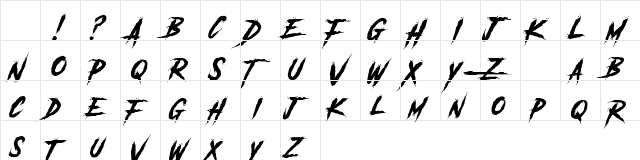
Another Danger Slanted - Demo Regular
Designer: The Branded Quotes
Design Context for Another Danger Slanted - Demo
Another Danger Slanted - Demo is a composed and adaptable typeface that performs quietly and consistently across a wide range of design contexts. The slanted form adds forward momentum and visual energy.
Pro Tip: Use Another Danger Slanted - Demo for emphasis, pull quotes, and subheadings where its slanted energy can add rhythm to the layout.